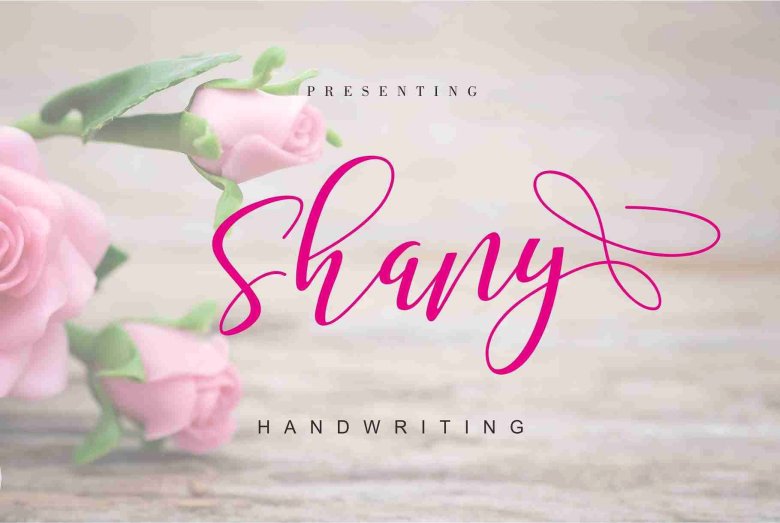
Shany Script Font
In the world we live in when so much typefaces has been made, people still need the new fresh one to representation their expression and what their speak. Introducing Shany Font. Shany is an created by Malindo Creative. Shany is a modern hand-based typography, This font is made up of irregularly flowing letters, both between top-down and with subsequent letters, which makes it suitable for Logotype, posters, businness cards, merchandise, wedding invitations, greeting cards, banners blogs, clothing, water-based paint designs / prints, correspondence, quotes and more!.